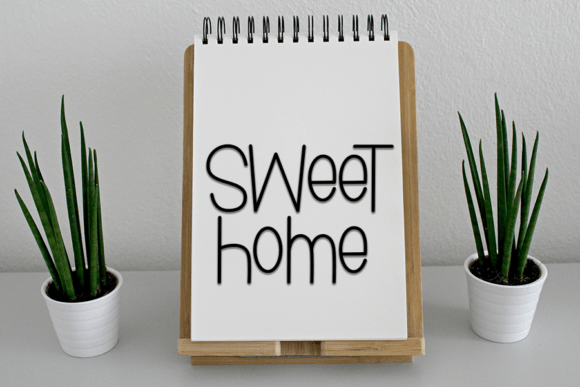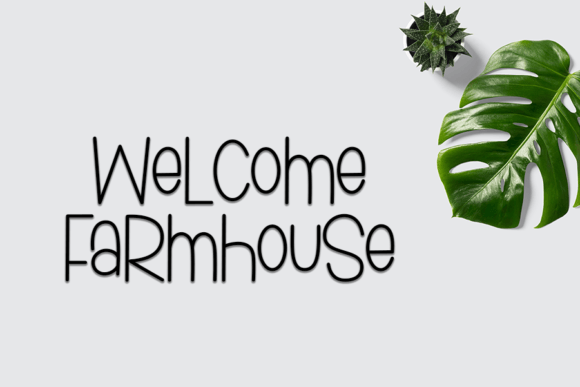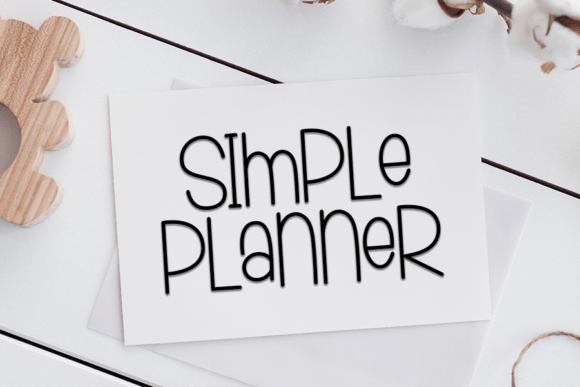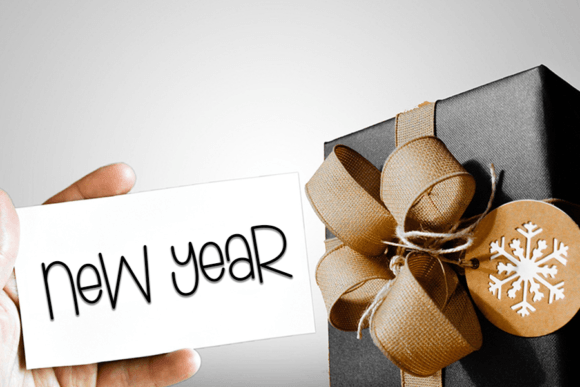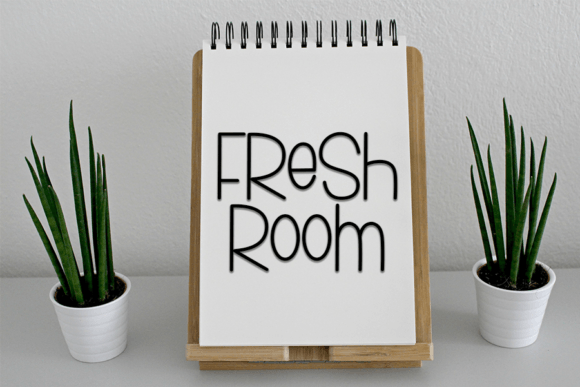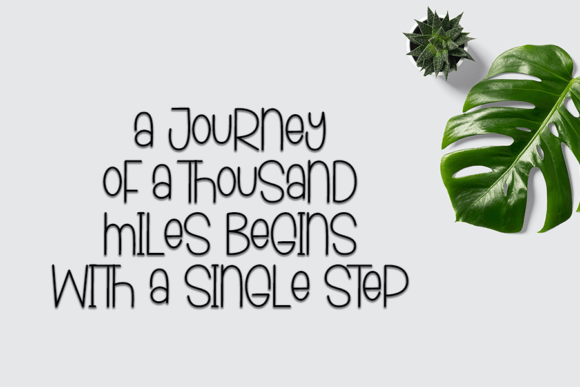
Discover Your New Favorite Font: Break Day Font
There’s nothing quite like the thrill of brainstorming a new project, surrounded by blank pages, colorful pens, and endless possibilities. As you begin to sketch out your ideas, the right font can make all the difference. That’s where Break Day Font comes in – a cool and modern handwritten font that’s perfect for adding a personal touch to your crafts, digital designs, and presentations.
With its playful and approachable feel, Break Day Font is a valuable addition to any designer’s toolkit. Whether you’re creating greeting cards, social media graphics, or promotional materials, this font has the potential to elevate your work and make it truly stand out. So why settle for a generic font when you can make a statement with Break Day Font?
Break Day Font Key Features
- Character Count: The font contains a wide range of characters, including uppercase and lowercase letters, numbers, and special characters.
- Size and Resolution: Break Day Font is designed to work well at various font sizes and resolutions, including small sizes and high-resolution displays.
- Unique Characteristics: The font features a unique, playful design with rounded edges and subtle flair, making it perfect for creative projects and branding.
- Font Weight: Break Day Font includes multiple font weights, from light to bold, allowing for flexibility in design applications.
Break Day Font Review
As a designer, I was excited to try out the Break Day Font. Overall, I’d say it’s a solid addition to any design project. ✨ One thing I appreciate about this font is its playful and casual vibe, making it perfect for creating attention-grabbing headlines or promotional materials. The font’s open shapes and rounded edges give it a friendly feel, which can be very effective in conveying a sense of approachability and relatability.
Another strength of the Break Day Font is its versatility. ✨ It can be used for both digital and print projects, and its bold and regular weights allow for a range of creative applications. Whether you’re designing a social media post, a website, or a business card, Break Day Font has got you covered.
- ⚠️ Limited to a single style, which may not be ideal for complex design projects that require multiple font styles.
- ⚠️ Not suitable for formal or professional applications, as its casual nature may not be fitting for such contexts.
- ⚠️ Some characters may not be as legible at smaller font sizes, which could be a concern for certain design projects.
While the Break Day Font has its limitations, I believe it’s a great option for designers looking to add some personality to their projects. With its playful vibe and versatility, it’s a solid choice for creating engaging and attention-grabbing designs.
Break Day Font is perfect for:
- Typography-heavy designs, such as posters or brochures.
- Presentations or reports to add a touch of professionalism.
- Titles and headings to add a touch of elegance to your design.